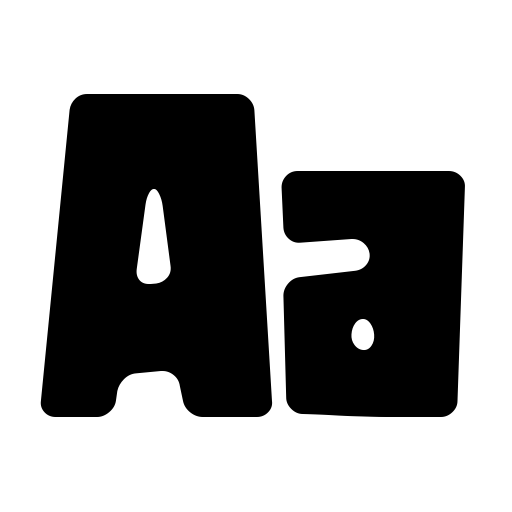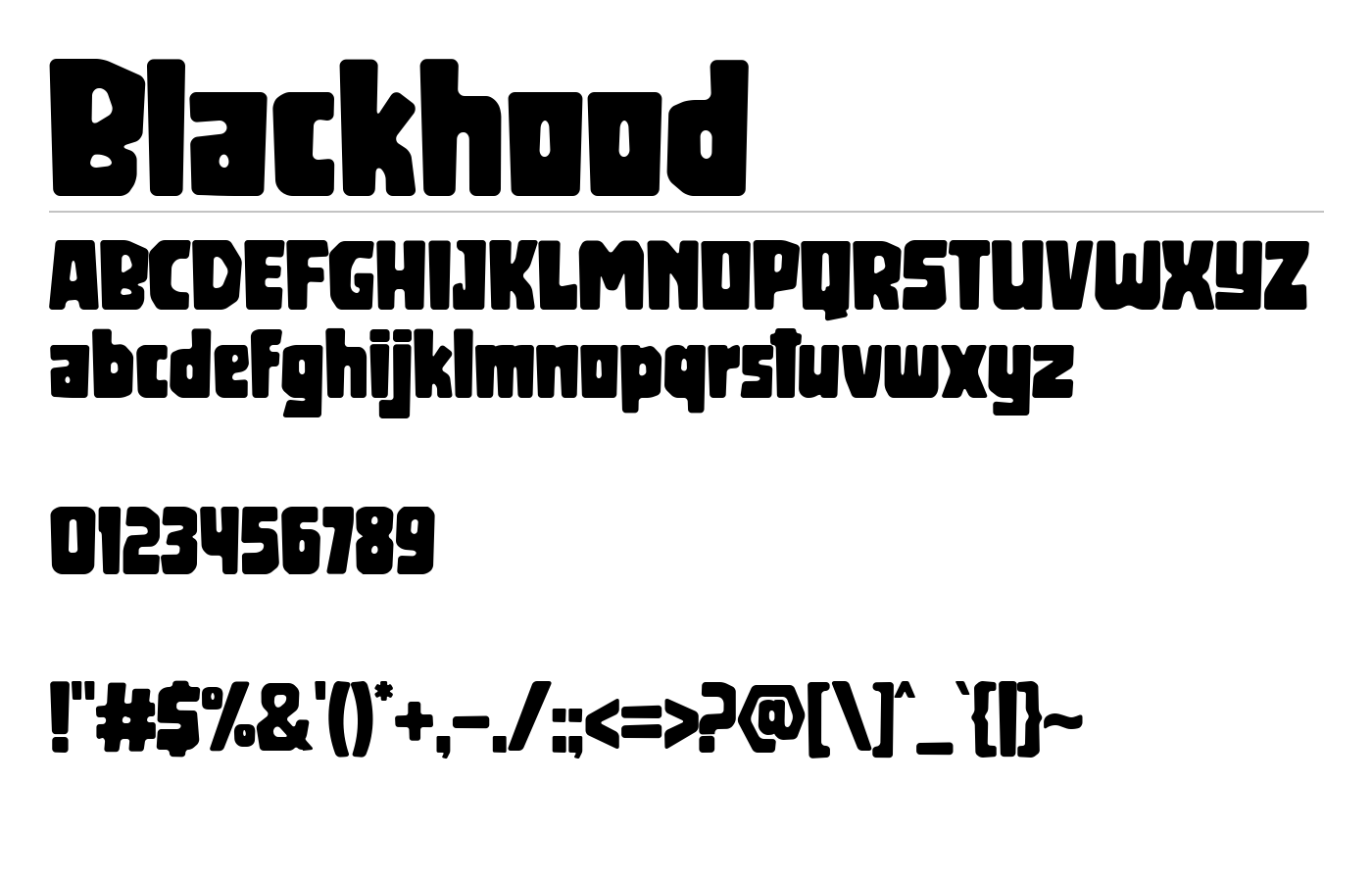
Blackhood is a bold, playful sans serif font with thick, rounded, and slightly irregular letterforms that give it a friendly, quirky character. Its strong, chunky style and uniform stroke weight make it perfect for eye-catching headlines, logos, and branding that want to convey a fun, informal vibe. This font works well in creative and casual contexts where a distinctive, approachable presence is needed.
Blackhood Font
About Blackhood Font
| Font family | Blackhood Font |
| Designer | Wahyu Andi |